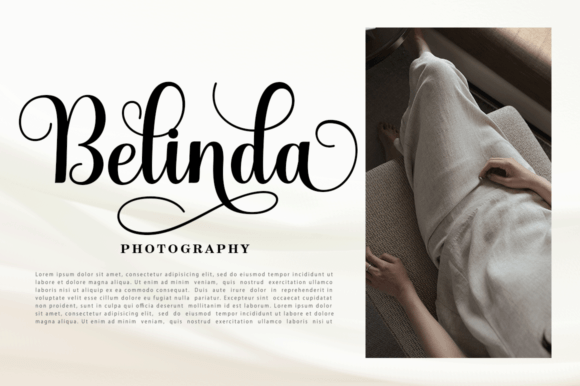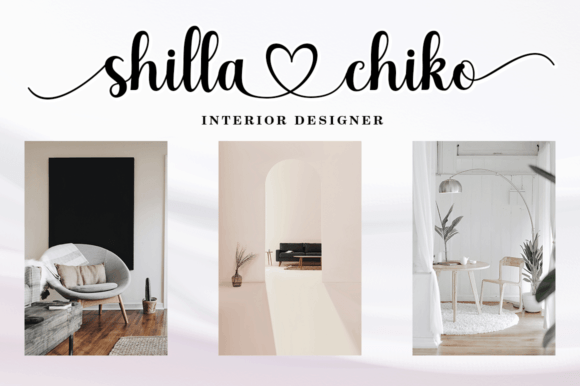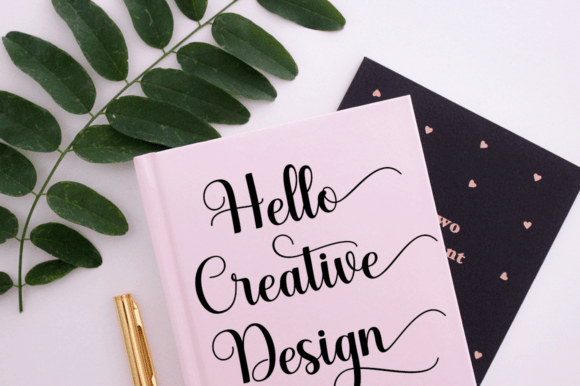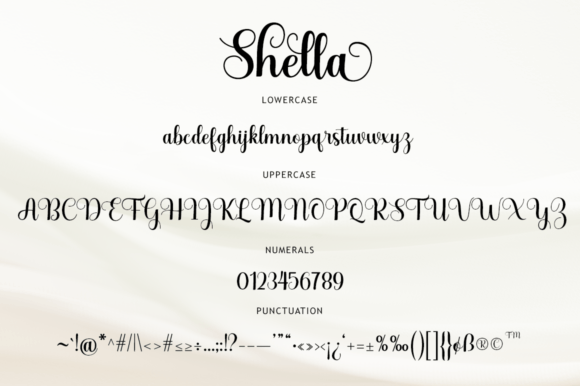
Shella Font
Shella is a modern, organic, dynamic, and energetic Script font. It can be used for various purposes. such as titles, signatures, logos, correspondence, wedding invitations, letterheads, nameplates, labels, newsletters, posters, badges, etc.